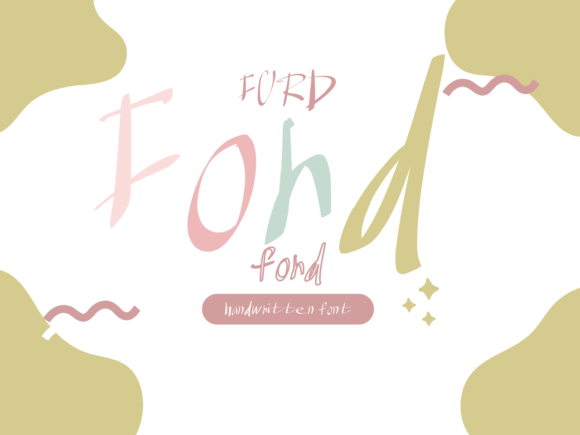
Its smooth, hand‑drawn curves give every word a gentle, approachable vibe, while its organic strokes keep your design feeling fresh and unique. Whether you’re designing for personal fun or a creative brand project, Ford Font opens a world of possibilities.
What is Ford Font?
Ford Font is a handwritten script font crafted to look natural, fluid, and slightly casual. It doesn’t mimic the precise curves of modern calligraphy; instead, it feels handwritten in real life — relaxed, slightly imperfect, and full of personality.
✨ Key highlights:
Smooth handwritten curves
Playful yet balanced character shapes
Works great for headlines, logos, and quotes
Adds warmth and friendliness to your message
Its natural strokes make designs look personal, like a handwritten note — perfect for brands or projects wanting to feel authentic and welcoming.
Why Designers Love Ford Font
💡 Authentic Handwritten Feel:
Unlike generic scripts, Ford Font feels truly hand‑drawn.
🎨 Versatile Aesthetic:
Casual enough for lifestyle blogs, yet clean enough for branding.
📐 Great Legibility:
Even with its playful look, text remains easy to read.
🖌 Friendly Personality:
Perfect for businesses or projects targeting a warm, approachable image.
⚡ Design Freedom:
Pairs well with other fonts — classic serifs, modern sans‑serifs, or bold display fonts.
Best Uses for Ford Font
Thanks to its relaxed handwritten style, Ford Font can shine in a wide range of creative contexts:
✅ Social Media Graphics:
Quotes, announcements, or captions that stand out in feeds.
✅ Branding & Logos:
Great for boutique shops, small businesses, or creative brands.
✅ Wedding Invitations:
Names, headings, or short messages with an elegant casual vibe.
✅ Posters & Flyers:
Add personality to event titles or taglines.
✅ Product Packaging:
Perfect for artisan brands, handmade goods, or organic products.
✅ Stationery & Greeting Cards:
Messages feel personal and heartfelt.
Design Tips for Using Ford Font
🎨 Mix & Match Fonts:
Pair Ford Font’s handwritten look with clean sans‑serifs for contrast.
🖌 Keep it Big:
The details look best in headlines, quotes, or logos.
🌿 Play With Color:
Soft pastels, earthy tones, or gradients complement its natural feel.
📏 Mind Spacing:
Slightly increase letter spacing for an airy, casual vibe.
✨ Layer Effects:
Try subtle shadows or textures to add depth.
Creative Design Ideas with Ford Font
🛍 Boutique Logo:
Brand name in Ford Font paired with a clean tagline.
💍 Wedding Invite Header:
Couple’s names or “Save the Date” in large, flowing letters.
📱 Instagram Quote:
Inspirational message over a minimalist background.
📦 Handmade Product Label:
Product name or “crafted by hand” tag.
📖 Blog Post Graphic:
Section titles or call‑outs to break up text.
Why Ford Font Stands Out
In a digital world dominated by polished sans‑serifs and sleek modern typefaces, Ford Font adds a human touch. It feels personal, creative, and real — the kind of handwriting that feels like it came from someone’s own hand, not a machine.
Whether you’re designing for yourself or a creative client, Ford Font brings text to life with its warmth and casual elegance.
Final Thoughts: Bring Warmth to Your Designs with Ford Font
Ford Font isn’t just a typeface — it’s a way to add personality and approachability to your designs. Its friendly handwritten style makes your words feel like they were crafted by hand, perfect for branding, invitations, packaging, and more.